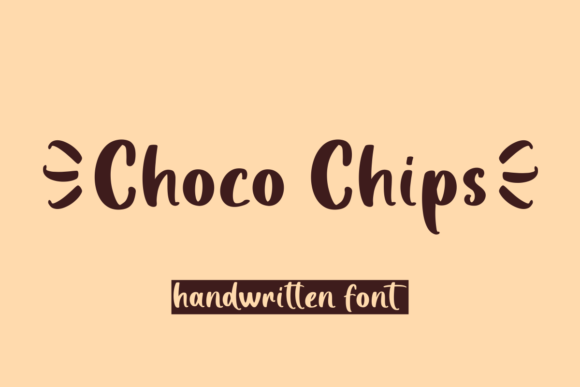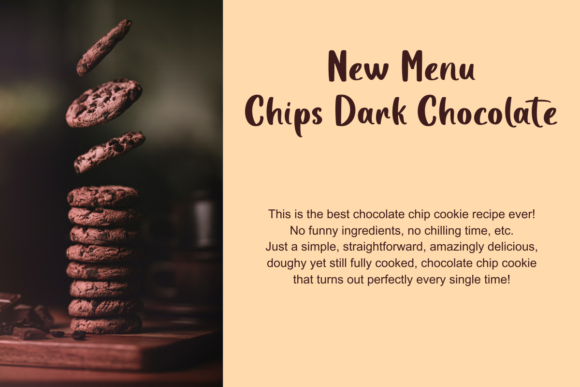
About Choco Chips Font
Choco Chips is a simple and cute handwritten font. It is defined by smooth curves and is perfect for fashion branding or editorial designs. Add it confidently to your projects, and you will love the results.